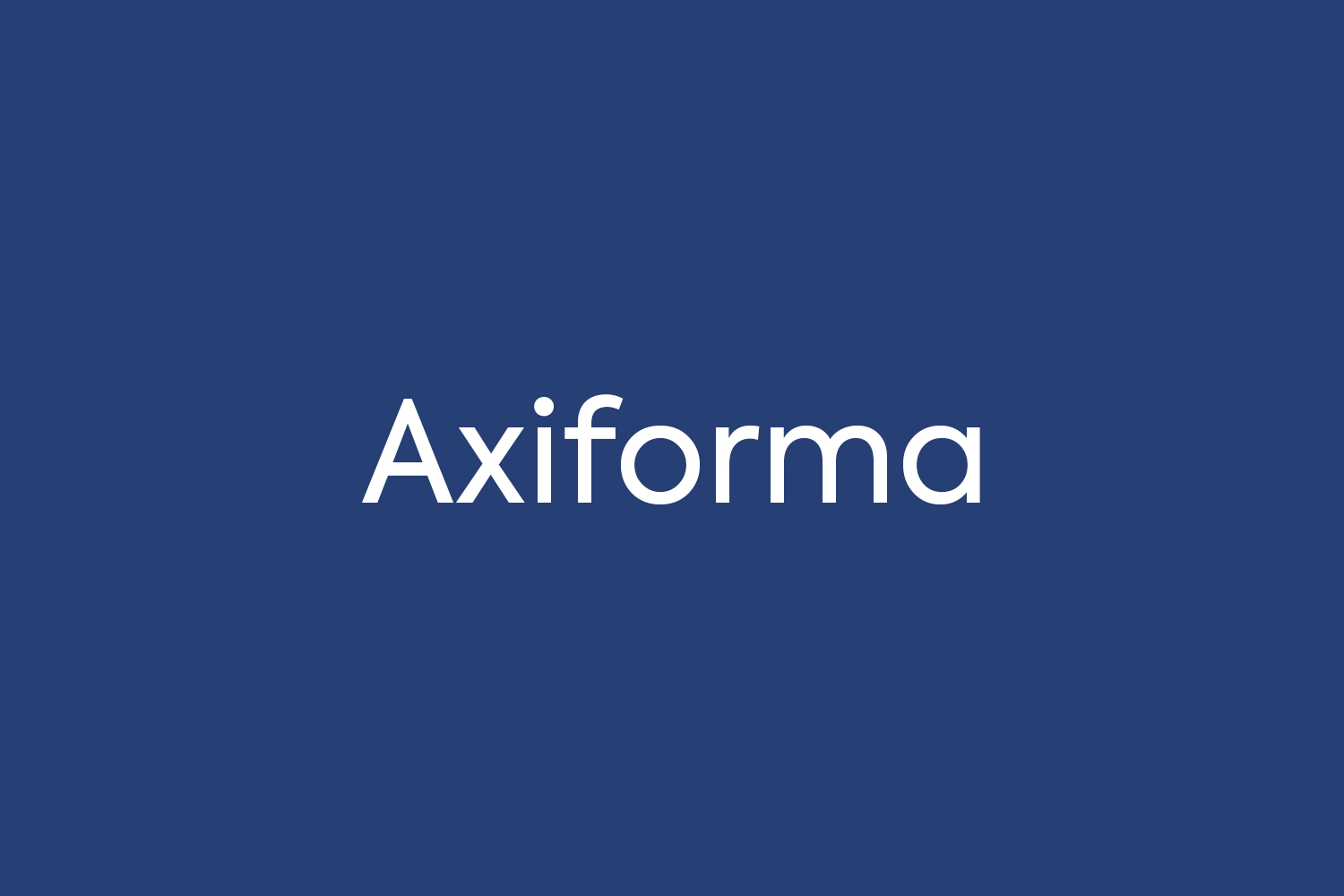
Axiforma Font Adobe - A sans serif typeface with 6 styles, available from adobe fonts for sync and web use. Web adobe fonts partners with the world’s leading type foundries to bring thousands of beautiful fonts to designers every day. Web explore aller available at adobe fonts.
Web explore aller available at adobe fonts. A sans serif typeface with 6 styles, available from adobe fonts for sync and web use. Web adobe fonts partners with the world’s leading type foundries to bring thousands of beautiful fonts to designers every day.
A sans serif typeface with 6 styles, available from adobe fonts for sync and web use. Web explore aller available at adobe fonts. Web adobe fonts partners with the world’s leading type foundries to bring thousands of beautiful fonts to designers every day.
Web explore aller available at adobe fonts. A sans serif typeface with 6 styles, available from adobe fonts for sync and web use. Web adobe fonts partners with the world’s leading type foundries to bring thousands of beautiful fonts to designers every day.
Web explore aller available at adobe fonts. Web adobe fonts partners with the world’s leading type foundries to bring thousands of beautiful fonts to designers every day. A sans serif typeface with 6 styles, available from adobe fonts for sync and web use.
Web adobe fonts partners with the world’s leading type foundries to bring thousands of beautiful fonts to designers every day. Web explore aller available at adobe fonts. A sans serif typeface with 6 styles, available from adobe fonts for sync and web use.
A sans serif typeface with 6 styles, available from adobe fonts for sync and web use. Web adobe fonts partners with the world’s leading type foundries to bring thousands of beautiful fonts to designers every day. Web explore aller available at adobe fonts.
Web explore aller available at adobe fonts. A sans serif typeface with 6 styles, available from adobe fonts for sync and web use. Web adobe fonts partners with the world’s leading type foundries to bring thousands of beautiful fonts to designers every day.
A sans serif typeface with 6 styles, available from adobe fonts for sync and web use. Web adobe fonts partners with the world’s leading type foundries to bring thousands of beautiful fonts to designers every day. Web explore aller available at adobe fonts.
A sans serif typeface with 6 styles, available from adobe fonts for sync and web use. Web explore aller available at adobe fonts. Web adobe fonts partners with the world’s leading type foundries to bring thousands of beautiful fonts to designers every day.
Web explore aller available at adobe fonts. A sans serif typeface with 6 styles, available from adobe fonts for sync and web use. Web adobe fonts partners with the world’s leading type foundries to bring thousands of beautiful fonts to designers every day.
Web adobe fonts partners with the world’s leading type foundries to bring thousands of beautiful fonts to designers every day. Web explore aller available at adobe fonts. A sans serif typeface with 6 styles, available from adobe fonts for sync and web use.
Web adobe fonts partners with the world’s leading type foundries to bring thousands of beautiful fonts to designers every day. A sans serif typeface with 6 styles, available from adobe fonts for sync and web use.